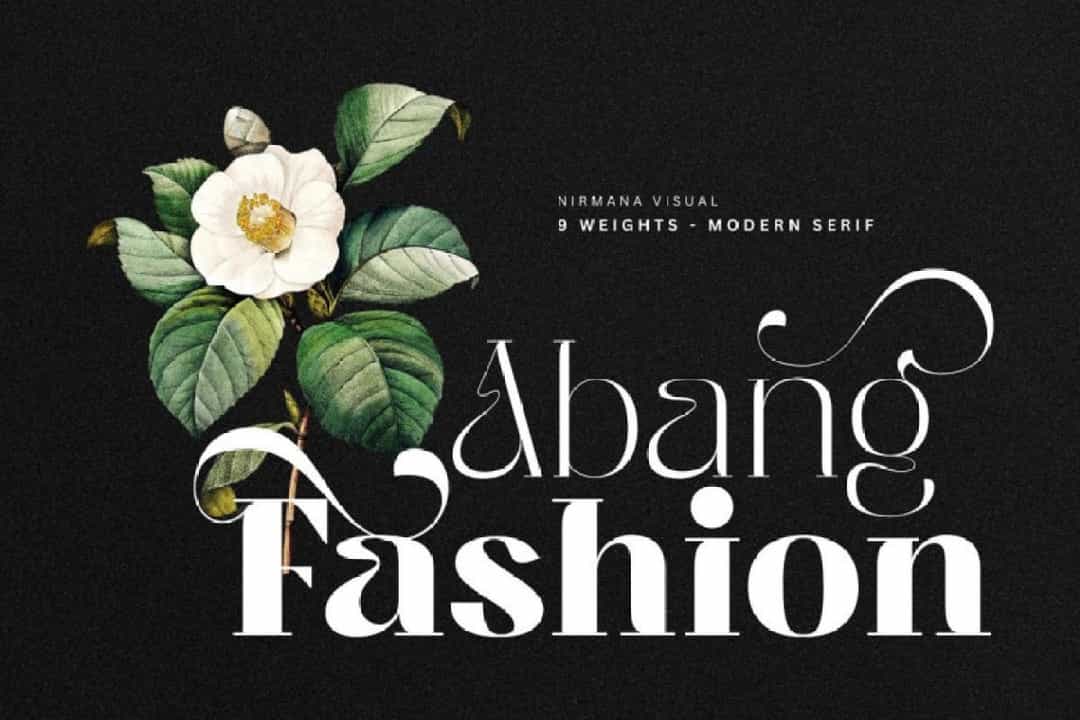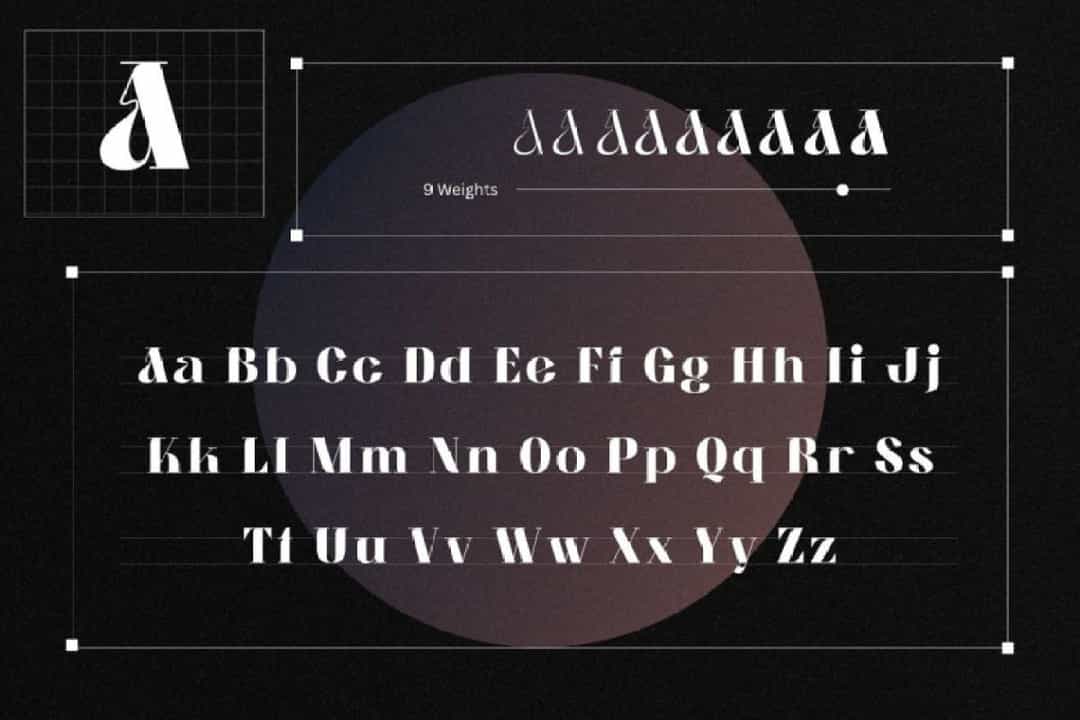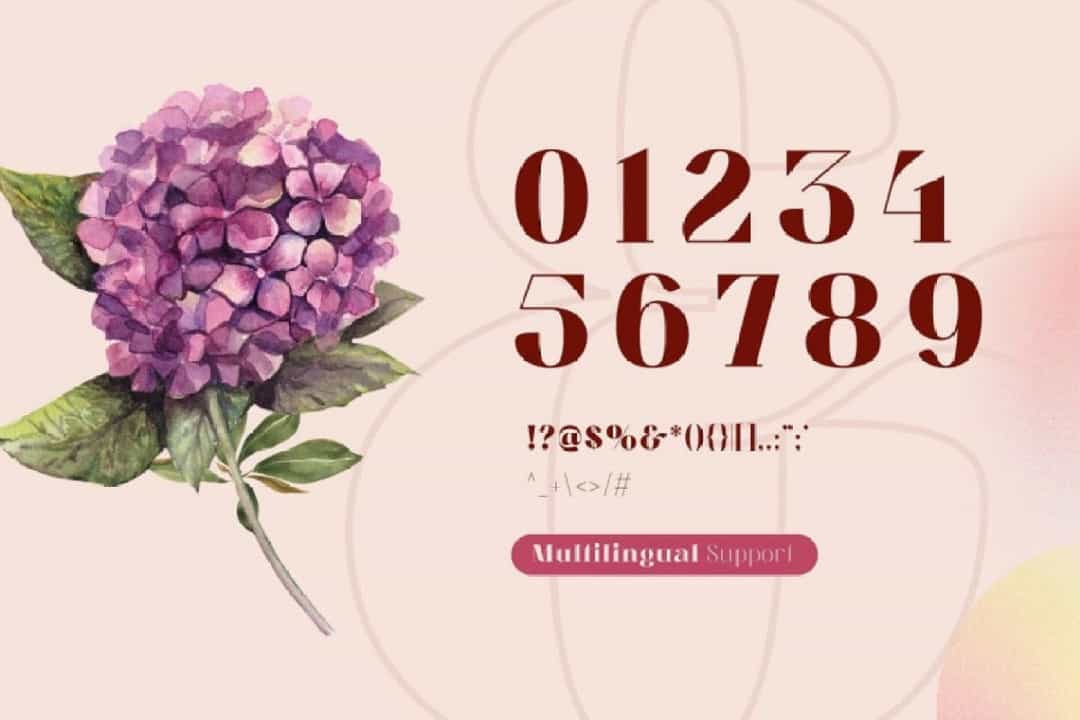
Abang Fashion is an exquisite font with nine weights, complete with lowercase and uppercase numerals, letters, punctuation marks and multilingual symbols – ideal for titles logo, typography clothing brochures magazines packaging designs as well as professional presentations.